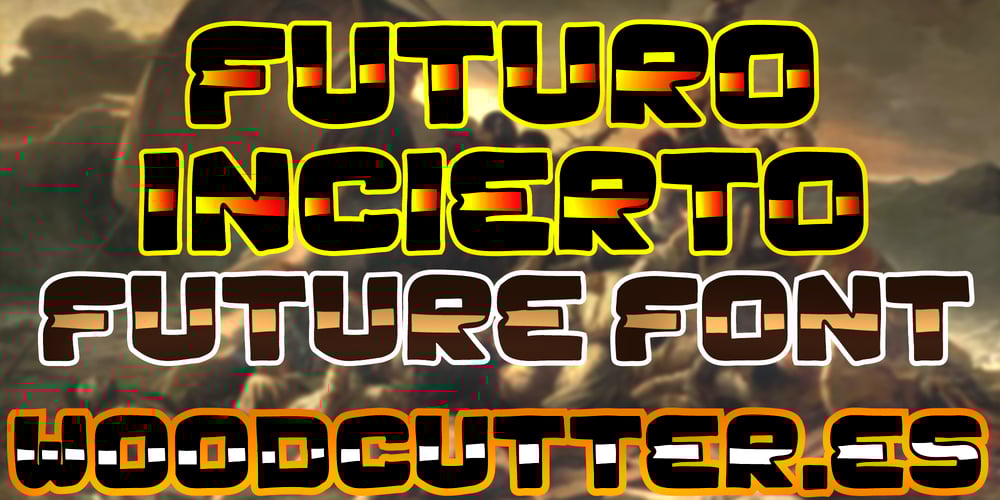
Futuro Incierto Font Family was designed by Jordi Manero and published by Woodcutter. Futuro Incierto contains 1 styles and family package options. “Futuro Incierto” is a techno-style font that stands out for its futuristic and unique design. Each letter, always in uppercase and with accents, is decorated with a stripe in the middle, adding a modern and avant-garde touch. This typeface is perfect for projects aiming to convey innovation and a contemporary style, ideal for posters, titles, and graphic designs that want to stand out in the digital and technological realm. “Futuro Incierto” seamlessly blends elegance and modernity in each of its strokes.